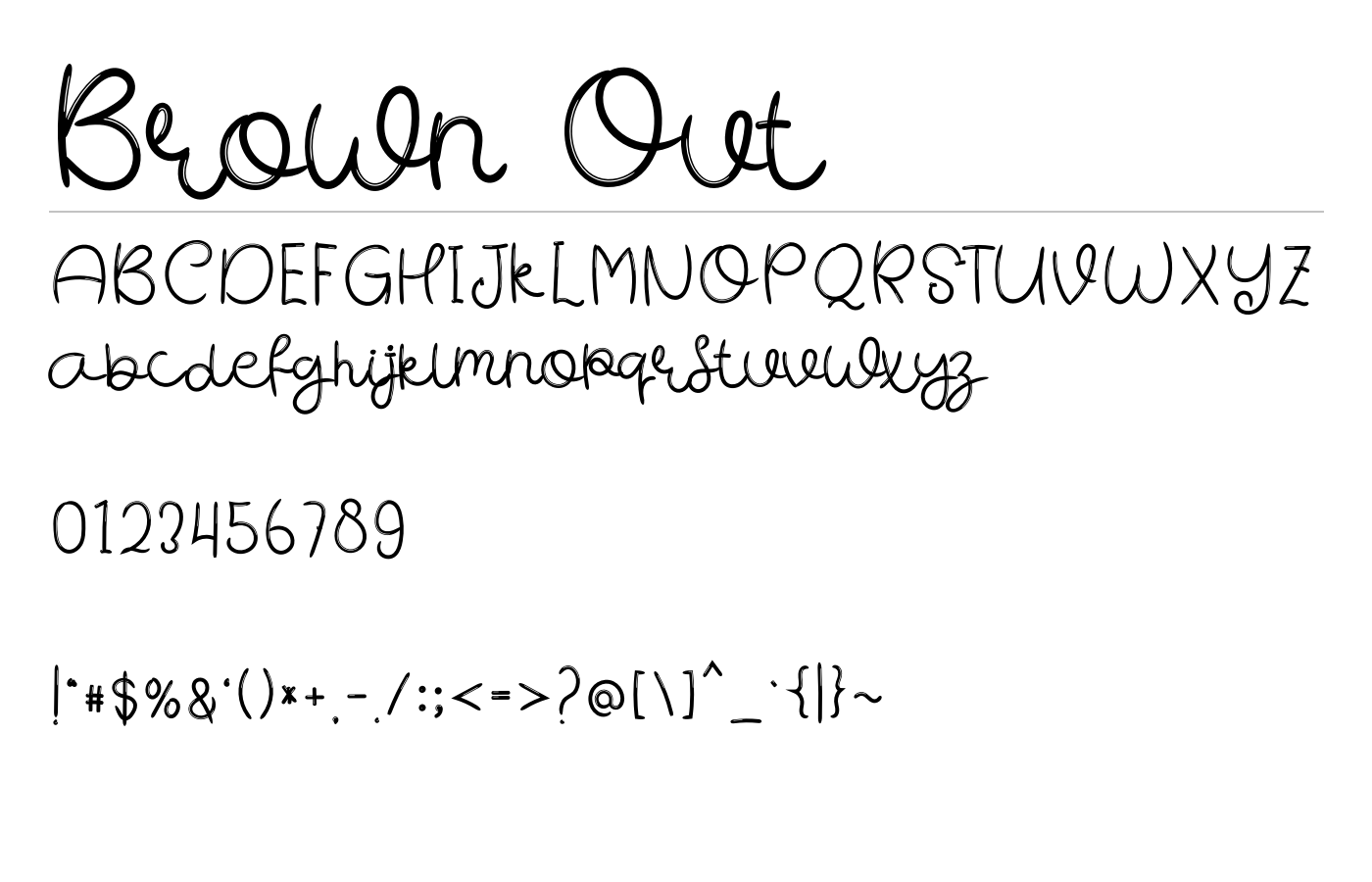
Brown Out Font is a playful, handwritten script with a light, airy feel due to its thin strokes and irregular, slightly whimsical letterforms. Its tall, narrow characters and casual loops give it a friendly and approachable personality, making it ideal for creative projects, informal branding, children’s materials, and fun editorial uses. This font works best where a personal, charming touch is needed rather than formal or heavy text.
Brown Out Font
About Brown Out Font
| Font family | Brown Out Font |
| Designer | Nur Edi Prayitno |